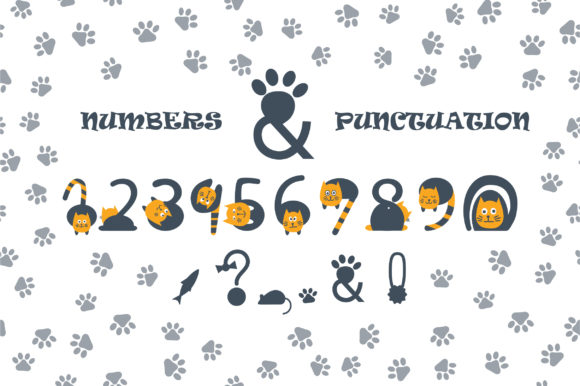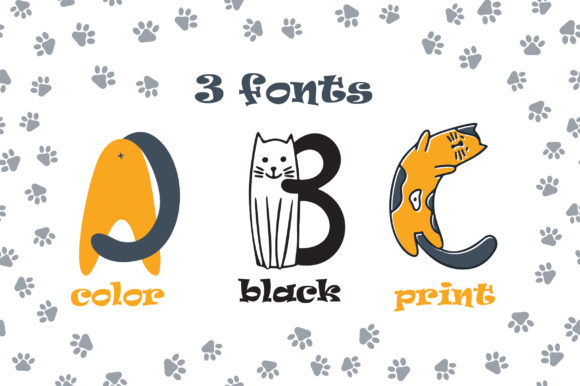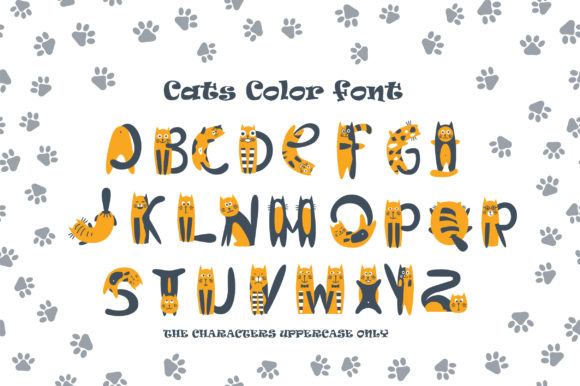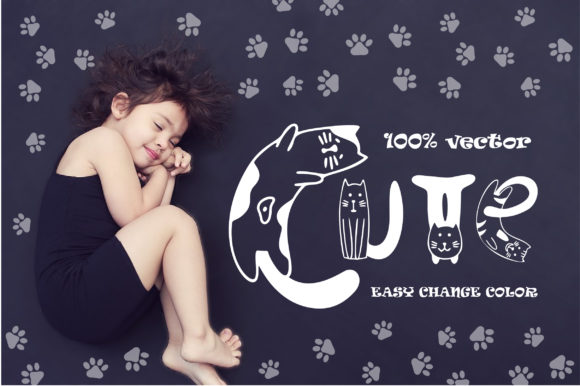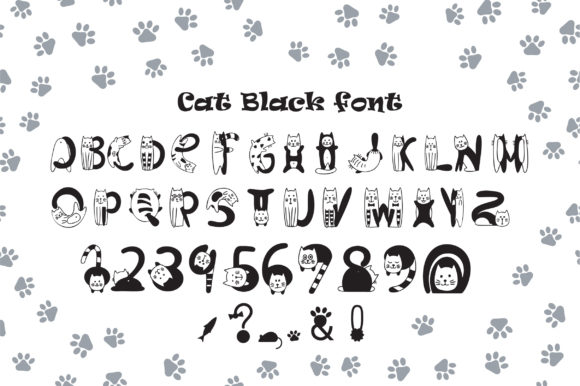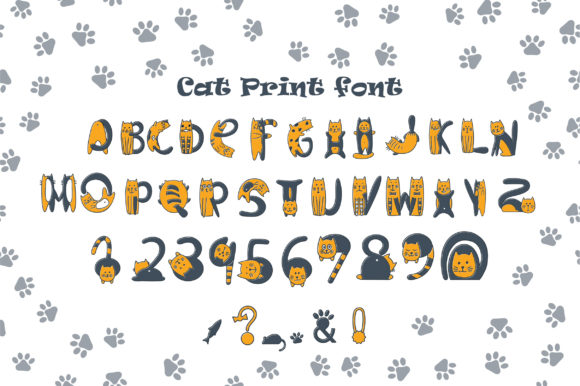
The Purr-fect Design Companion: Introducing Cats Font
Have you ever stared at a blank design canvas, searching for that perfect spark to bring your project to life? For designers, those moments of creative blockage can be frustrating and time-consuming. But what if I told you that there’s a font that can effortlessly add a touch of whimsy and charm to your designs? Say hello to Cats Font, a bold and adorable color font that’s sure to captivate your audience.
This delightful font is not just a pretty face; it’s a valuable tool for designers looking to add a unique twist to their projects. With its cute cat theme and bold charm, Cats Font is perfect for creating eye-catching designs that stand out from the crowd. Whether you’re working on a children’s book, a pet-themed product, or a whimsical website, this font is sure to bring a smile to your face and a touch of personality to your design.
- Unique Characteristics: The font features a unique blend of digital and hand-drawn elements, creating a distinctive and eye-catching visual effect.
Cats Font Review
I recently had the chance to work with the “Cats Font” and here’s my honest take on it.
- The unique design is undeniably eye-catching and can be a great addition to projects that need a whimsical touch.
- The font comes in a variety of weights and styles, making it versatile for different applications.
- The font is well-suited for use in headings and titles, adding a touch of personality to your design.
- The font may not be the best choice for body text, as it can be difficult to read in certain contexts.
- The design may not be suitable for projects that require a more professional or corporate tone.
Overall, I think the “Cats Font” is a fun and creative option for designers who want to add some personality to their work. However, it’s essential to use it judiciously and consider the context and audience before applying it to your project.
Tips for Getting the Most Out of Cats Font
Use the Cats Font for whimsical and playful designs, such as children’s book illustrations, cat-themed merchandise, and cat cafe branding.
Experiment with different font sizes and styles to create a unique and eye-catching design.
The Cats Font is perfect for:
- Cat-themed merchandise
- Cat cafe branding
- Playful social media graphics